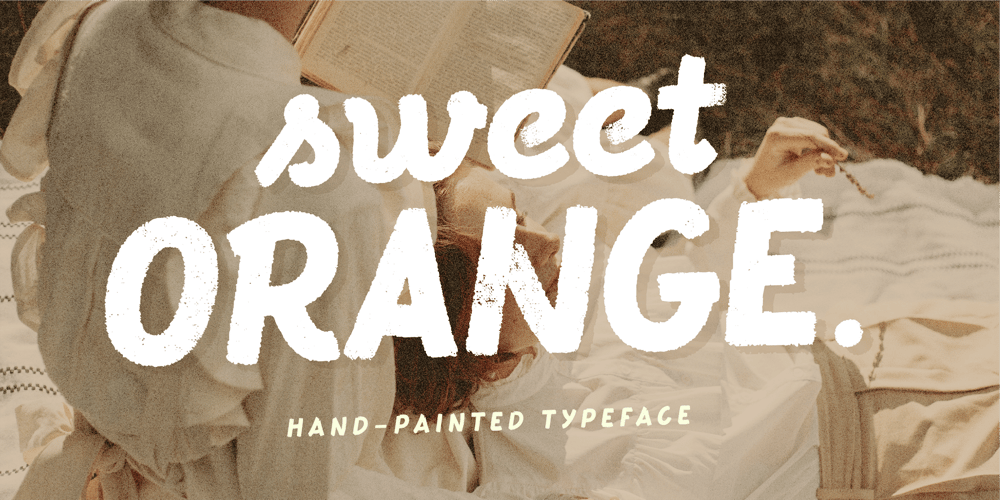
HV Sweet Orange
HV Sweet Orange font
HV Sweet Orange Font Family was designed by Max Duy T. and published by Harmonais Visual. HV Sweet Orange contains 3 styles and family package options. Sweet, cute & expressive – Sweet Orange helps bring out the playfulness in your designs. Hand-painted with a touch of heartiness and imperfection, Sweet Orange is perfect for adding a humanist and friendly feel to your artwork. This typeface comes in 2 styles: Regular and Alternative.Sweet Orange is perfect for a wide range of designs, especially packaging, book covers, and social media…